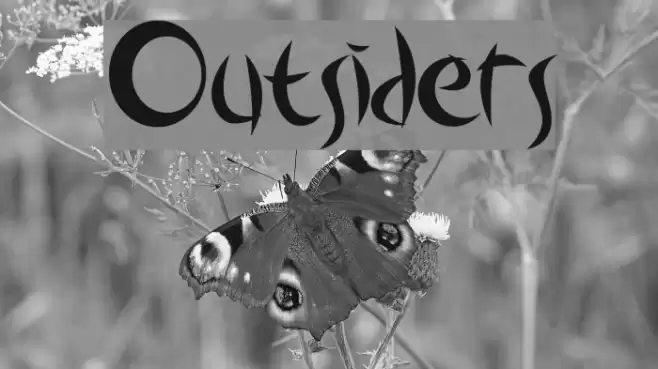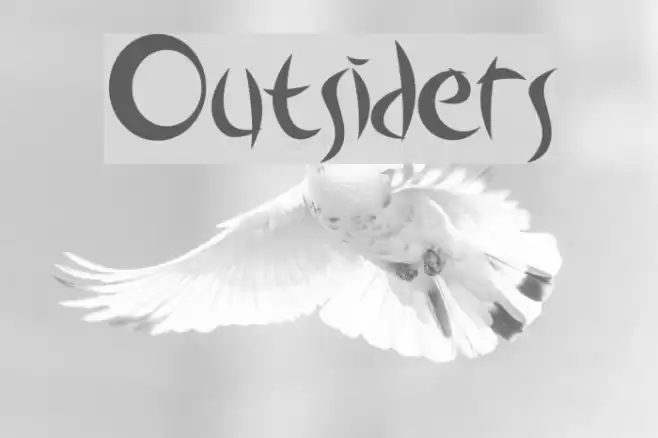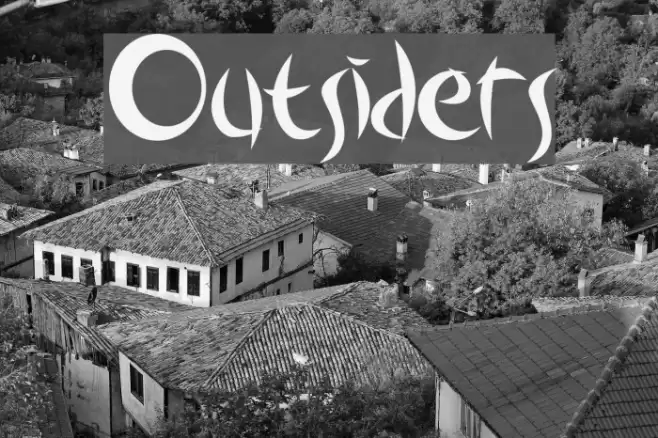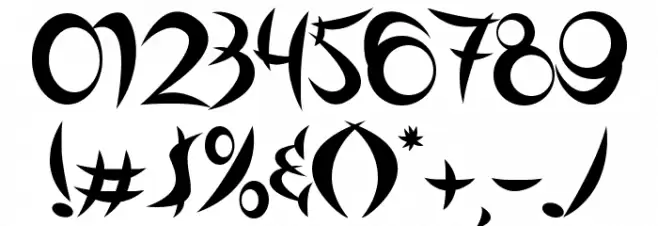
Outsiders Font
Outsiders Description
This font features a bold and dynamic design with sharp, angular lines and a sense of movement. The characters are highly stylized, with exaggerated curves and pointed edges that give a sense of energy and modernity. The uppercase and lowercase letters maintain a consistent style, while the numbers and special characters complement the overall aesthetic. This font is eye-catching and distinct, making it suitable for creative and unconventional projects.
A bold, dynamic font with sharp, angular lines and a modern, energetic style from Uncategorized fonts.
- Proposed Projects: Ideal for music album covers, skateboarding brands, graffiti art, or any project seeking a rebellious and edgy look.
- Use Case: Logos, Posters, Headlines